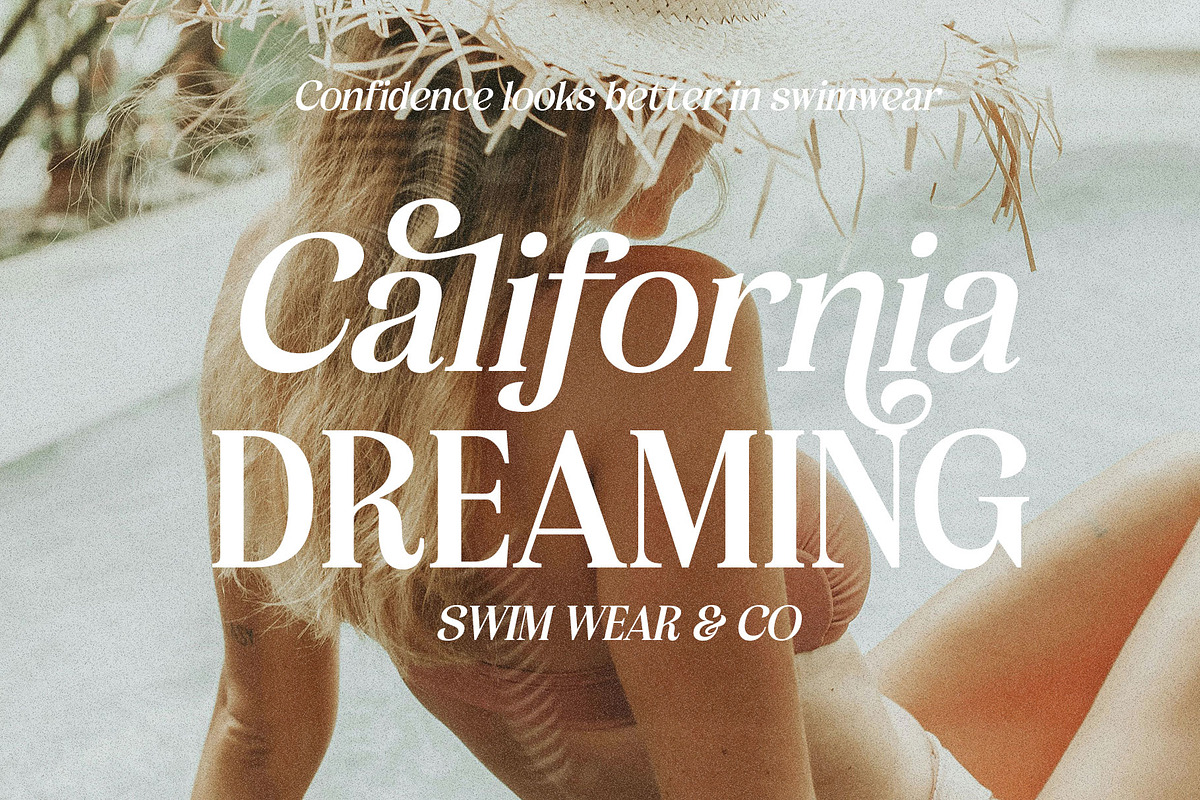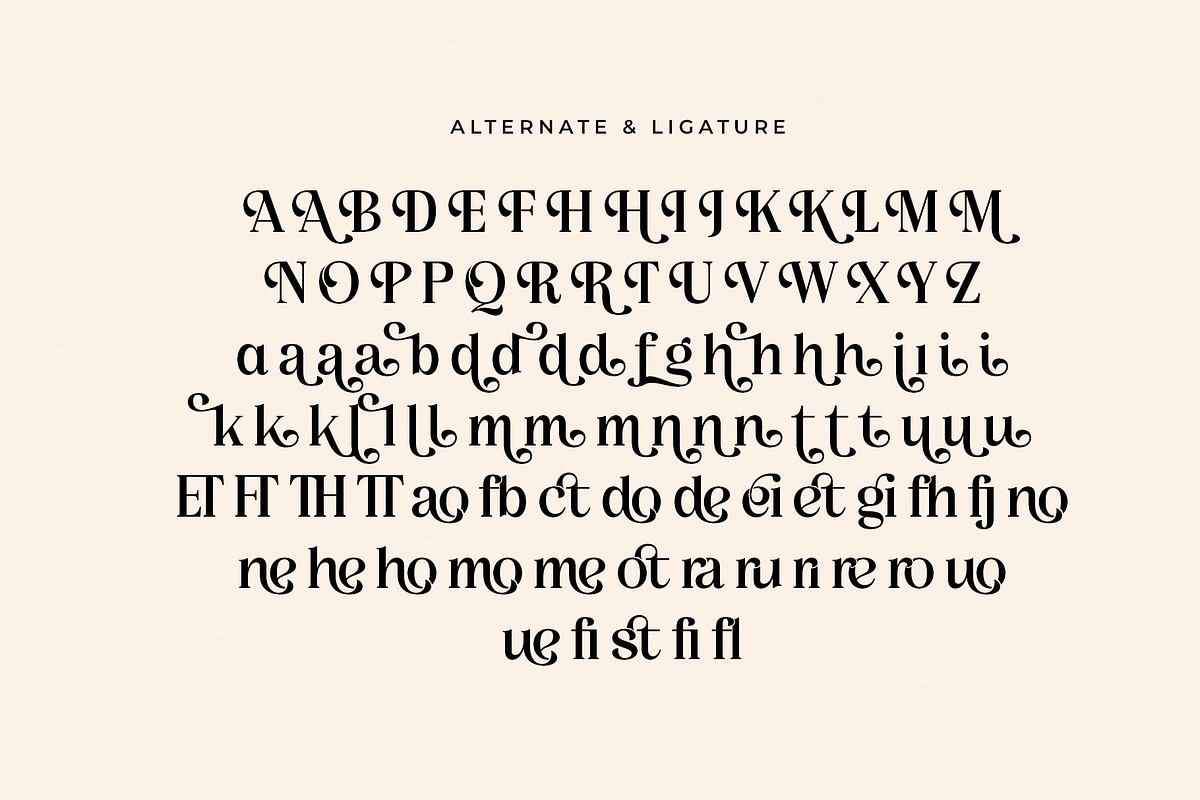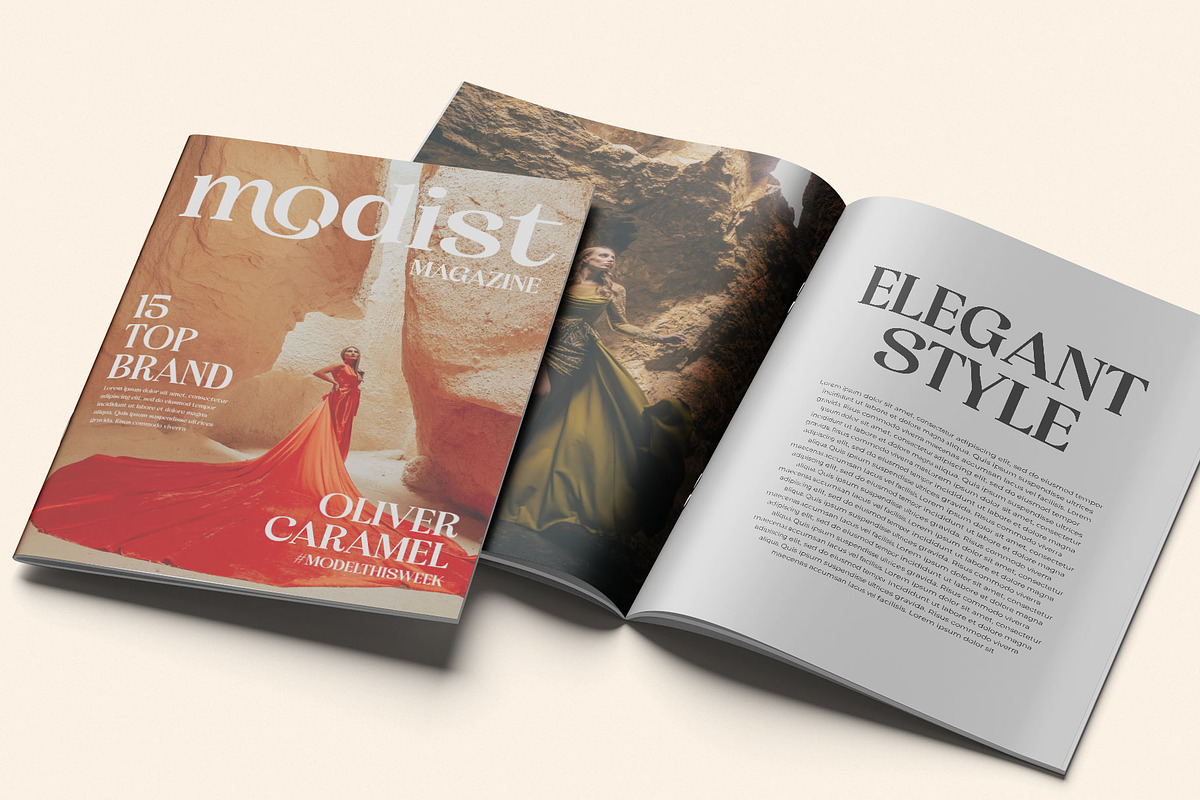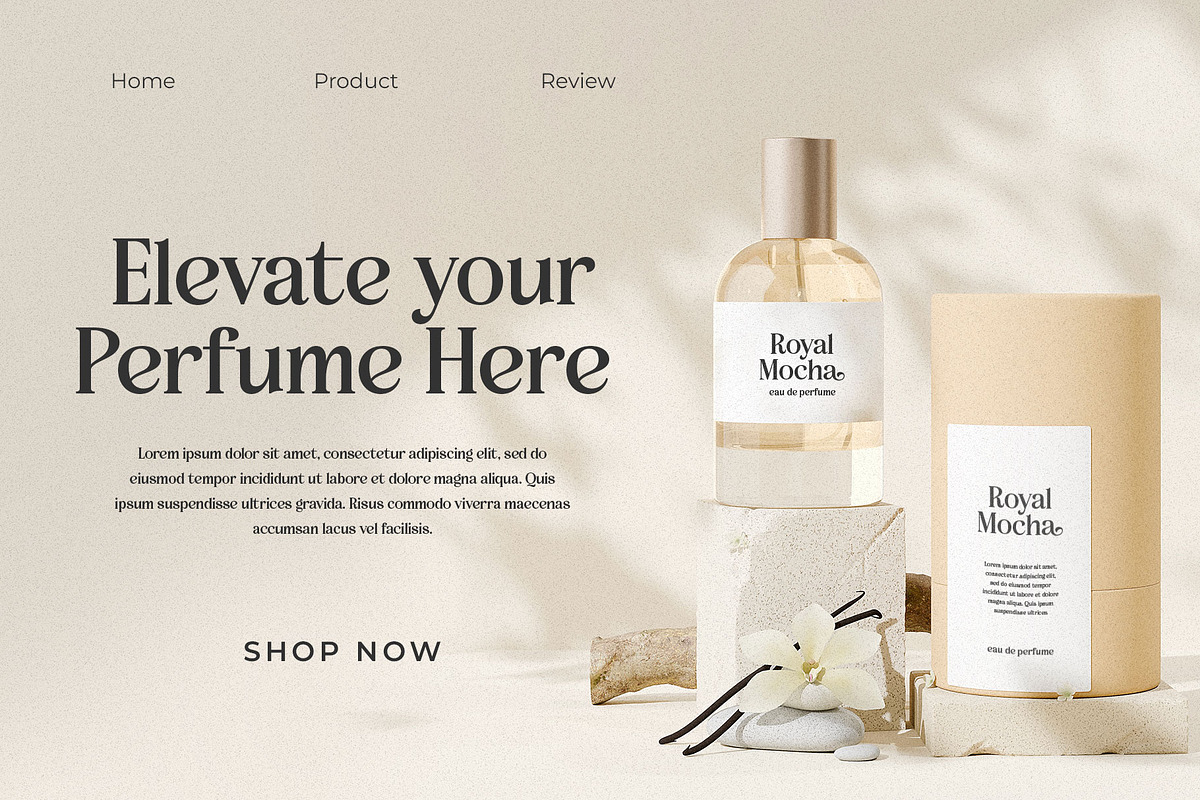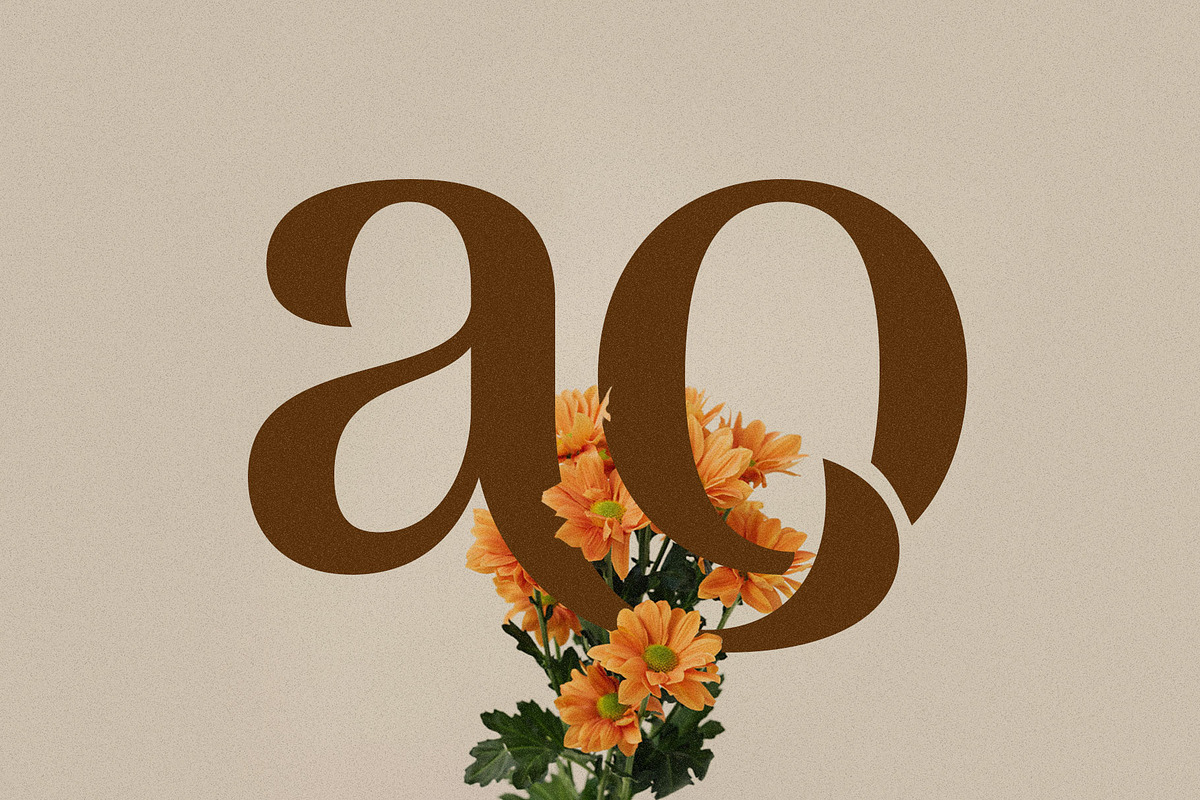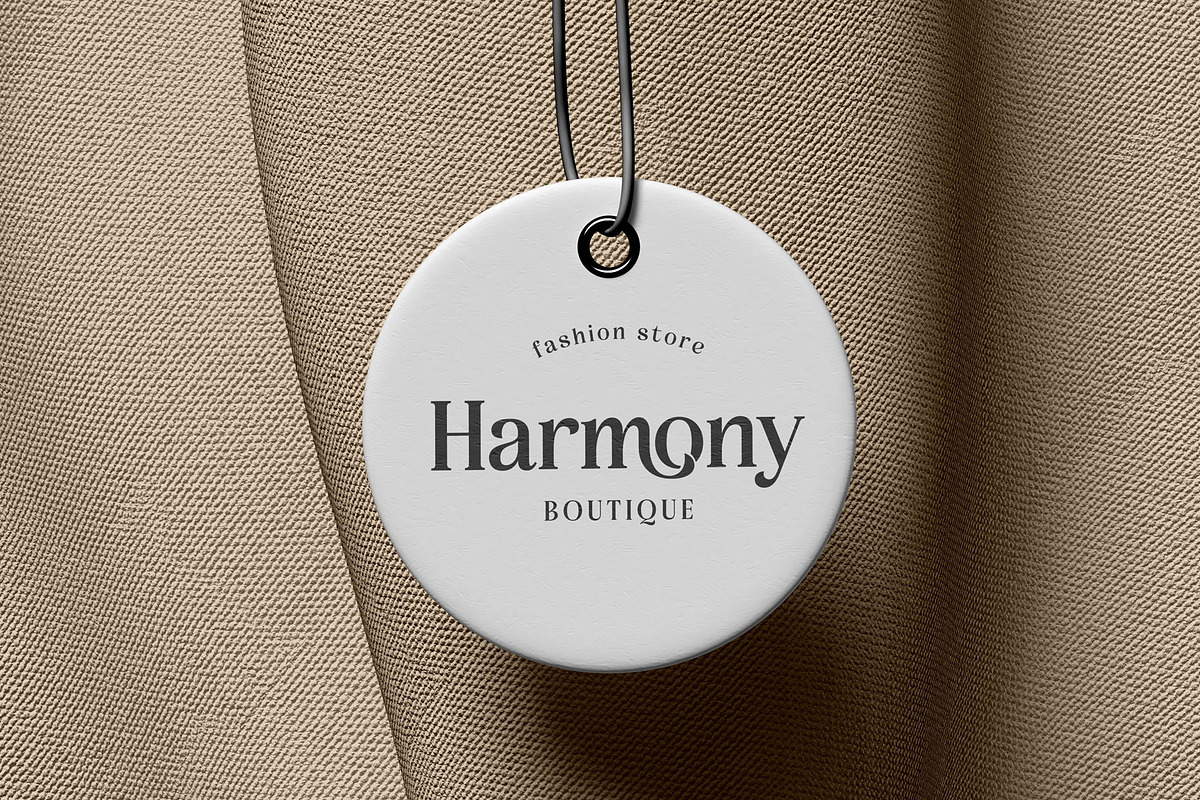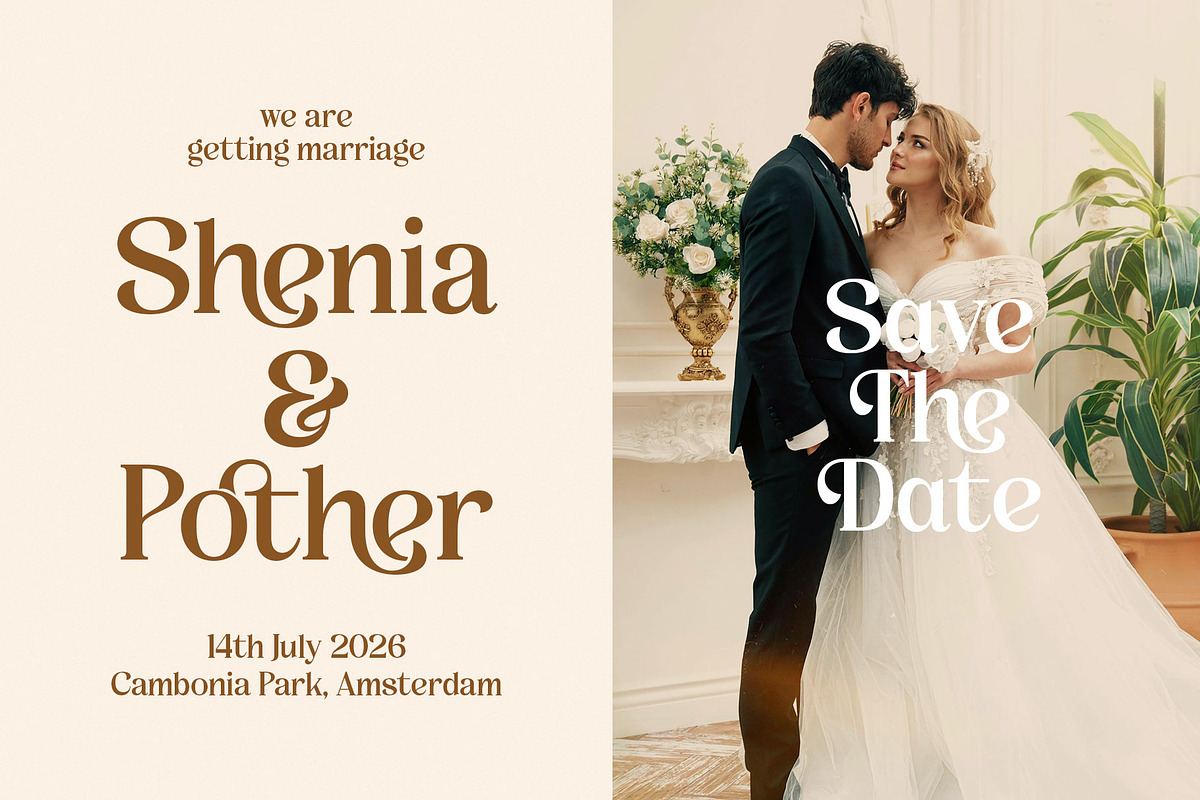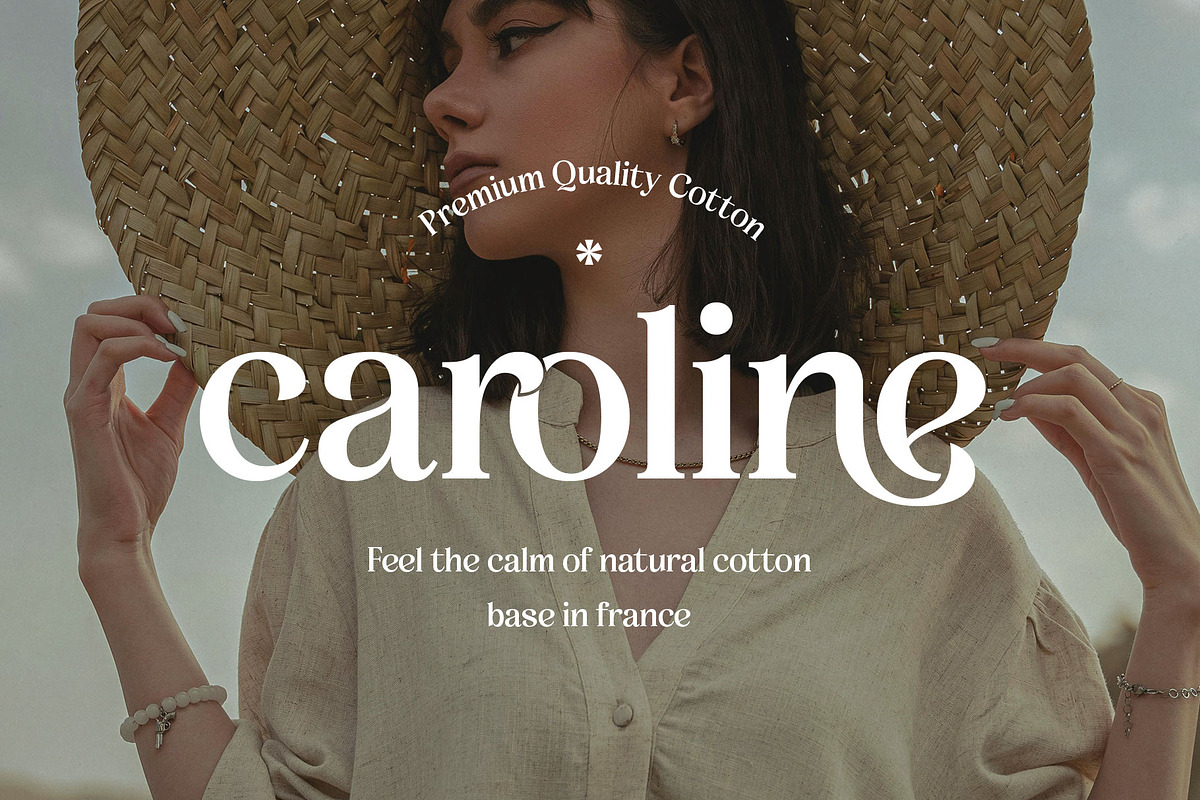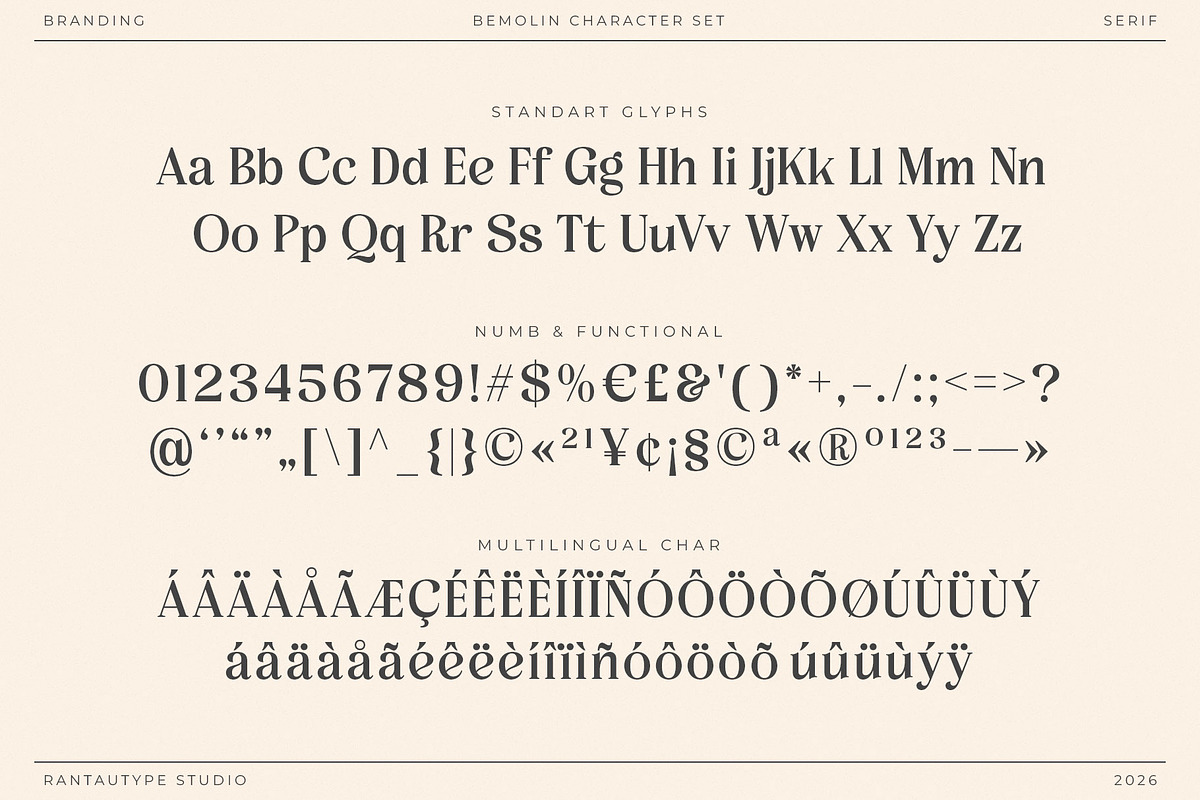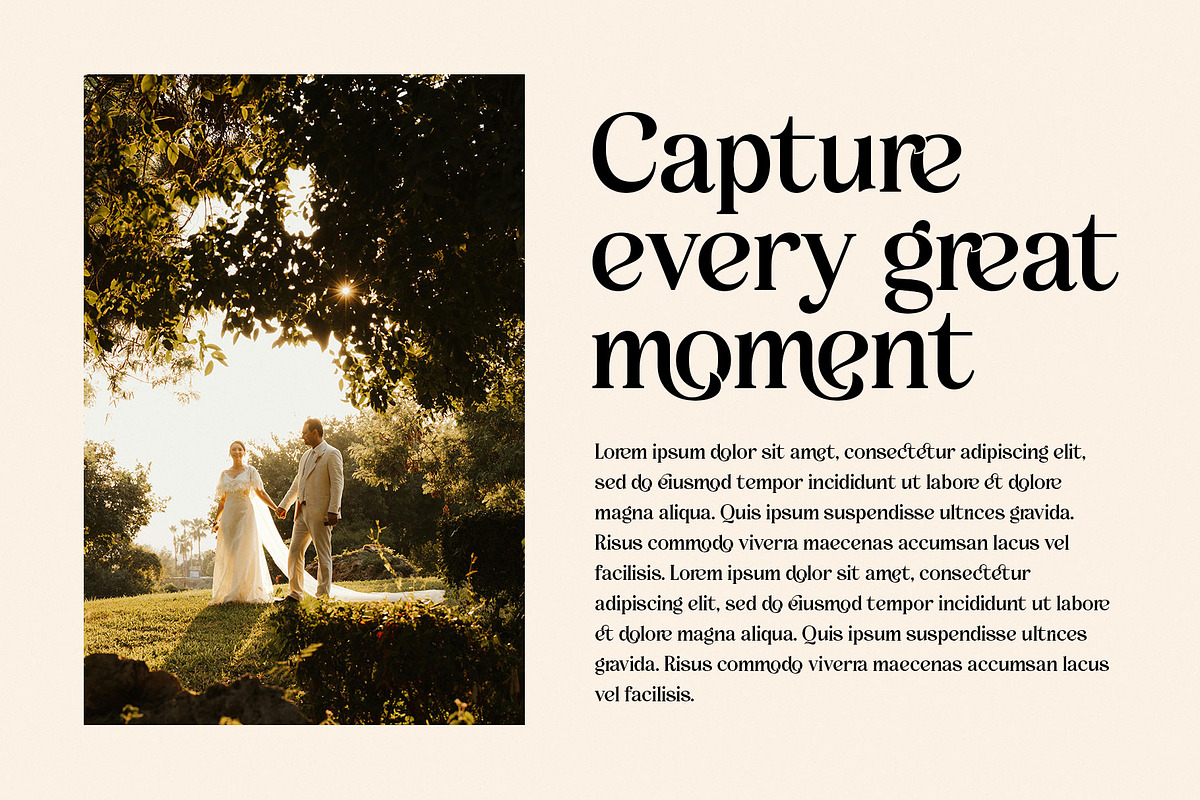
Bemolin Elegant Branding Font
Bemolin is embodies grace and professionalism is more than just a typeface, it is a visual signature that defines identity, tone, and perception. Designed with refined curves, balanced proportions, and meticulous attention to detail, this style of font seamlessly blends sophistication with clarity. Each letterform flows harmoniously, creating a sense of rhythm and poise that instantly elevates any design it touches.
Bemolin is a perfectly choice for any creative endeavor, creating, modern, lifestyle design such as logotype, title, cover, branding, invitations, wedding designs, display and magazine, social media posts, advertisements, printed quotes, product packaging, corporate brand, product designs, labels, photography, watermarks, special events and any other project with modern touch.
Standart Glyphs
Numberial and Functional
Alternate and ligature